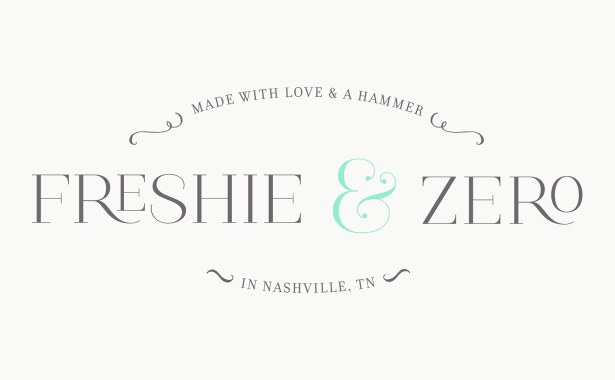
Searching for the name of the font used in the Freshie & Zero logo. It's a serif with a flourished R.
FRESHIE & ZERO appears to be
Guadalupe Pro Gota
, by Latinotype
Ligatures are used for RE and RO....